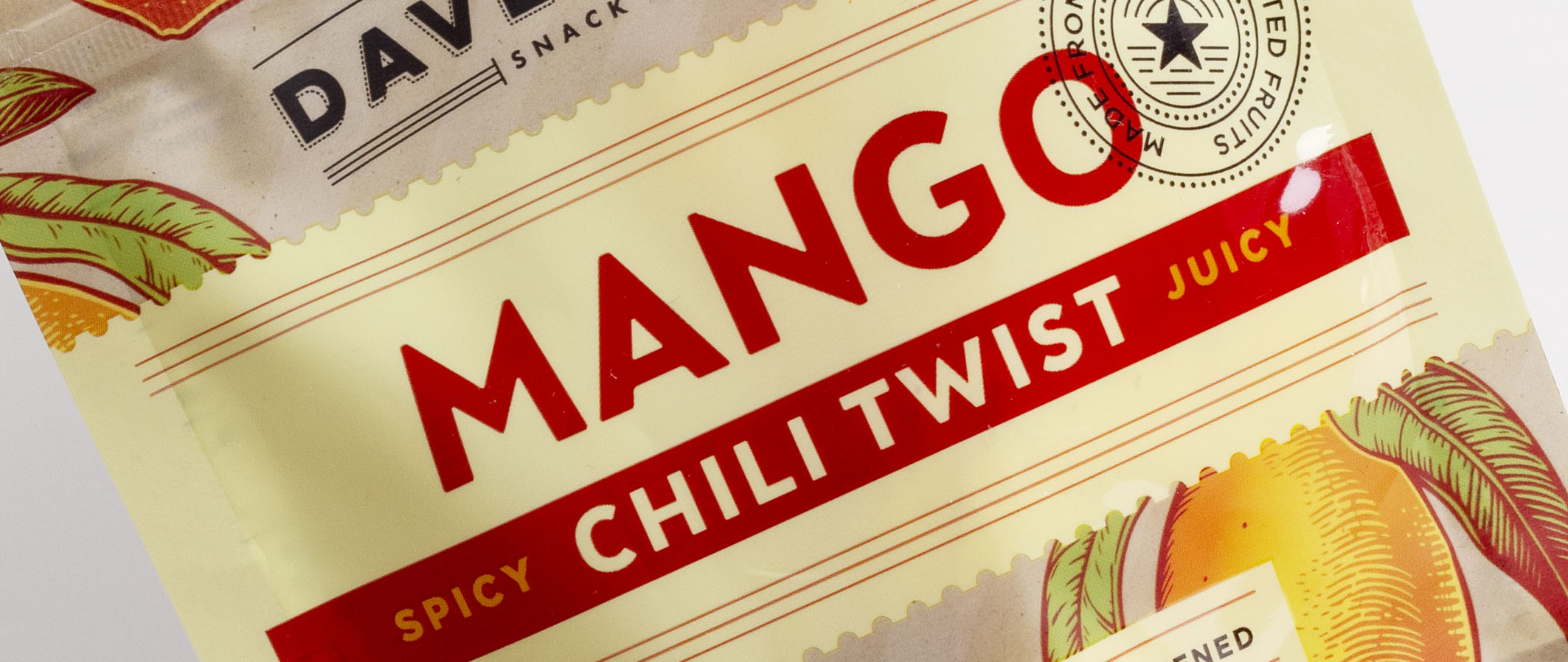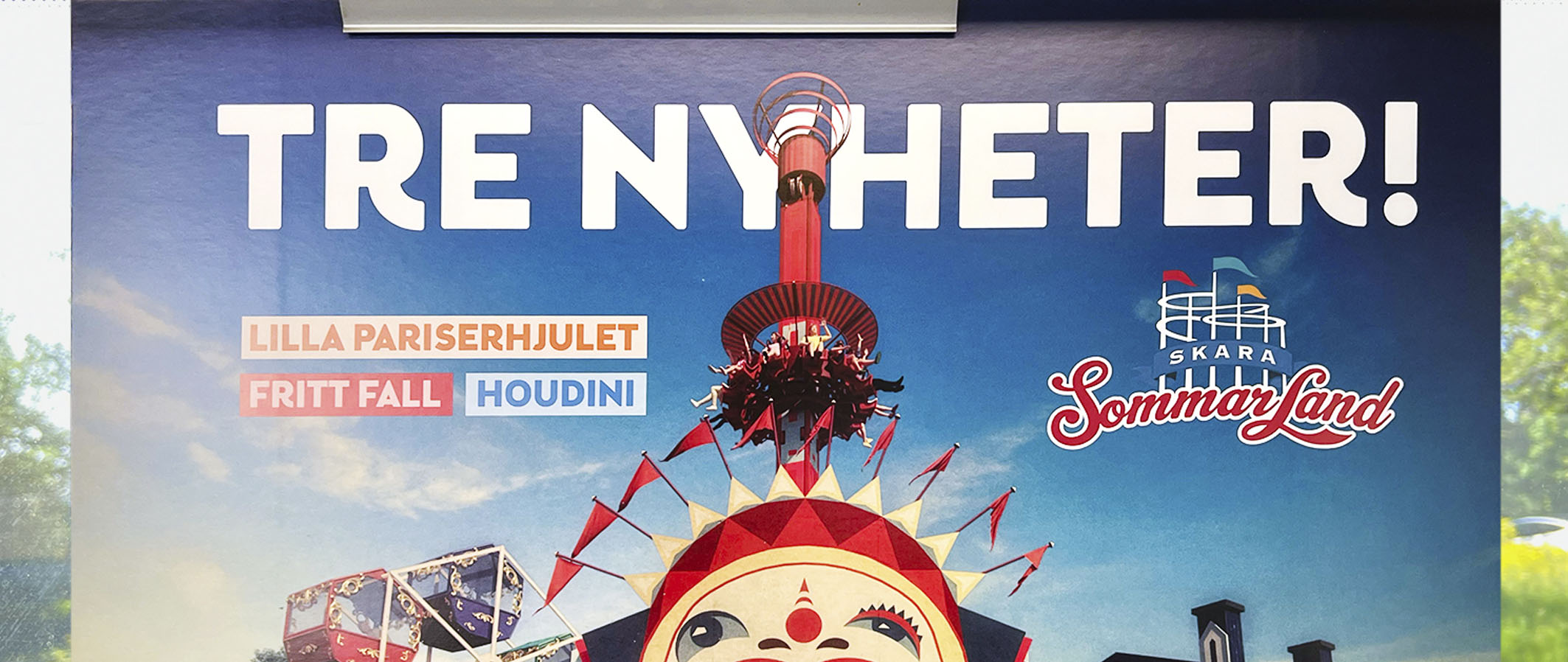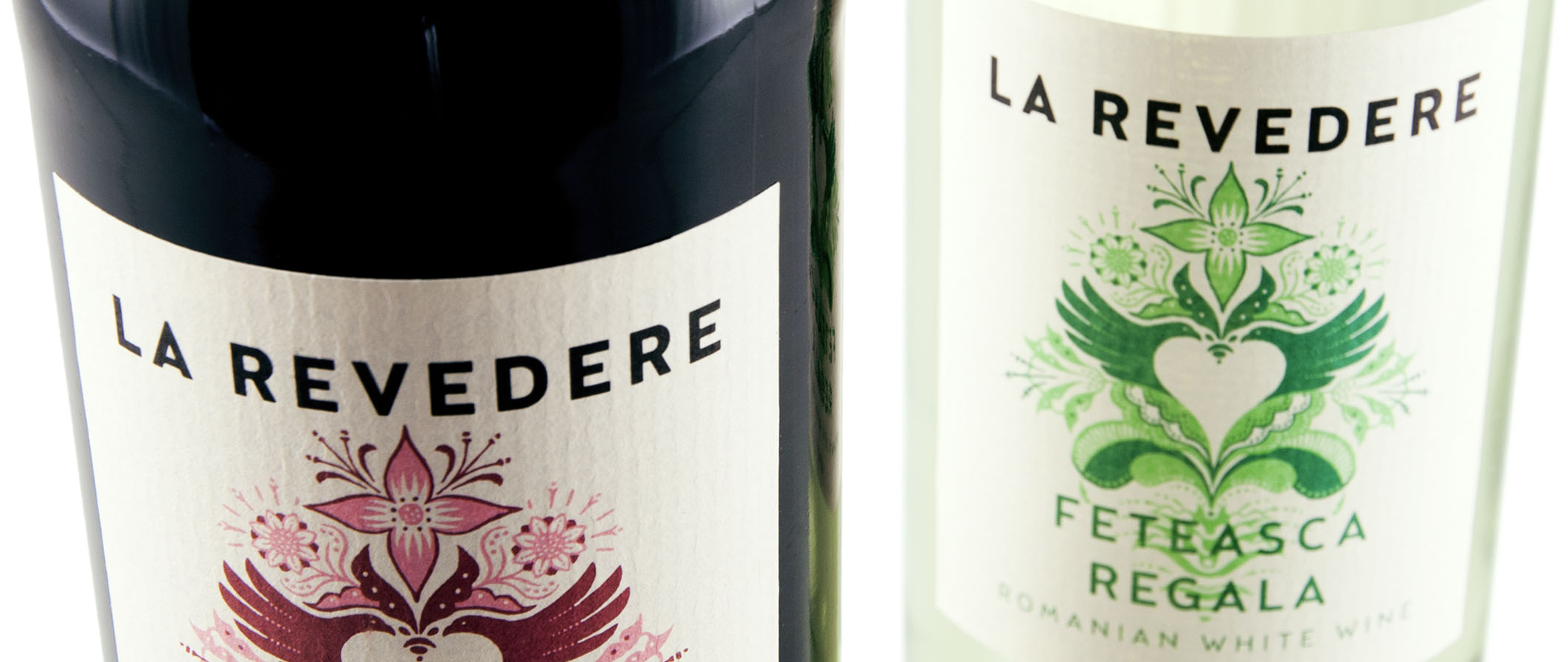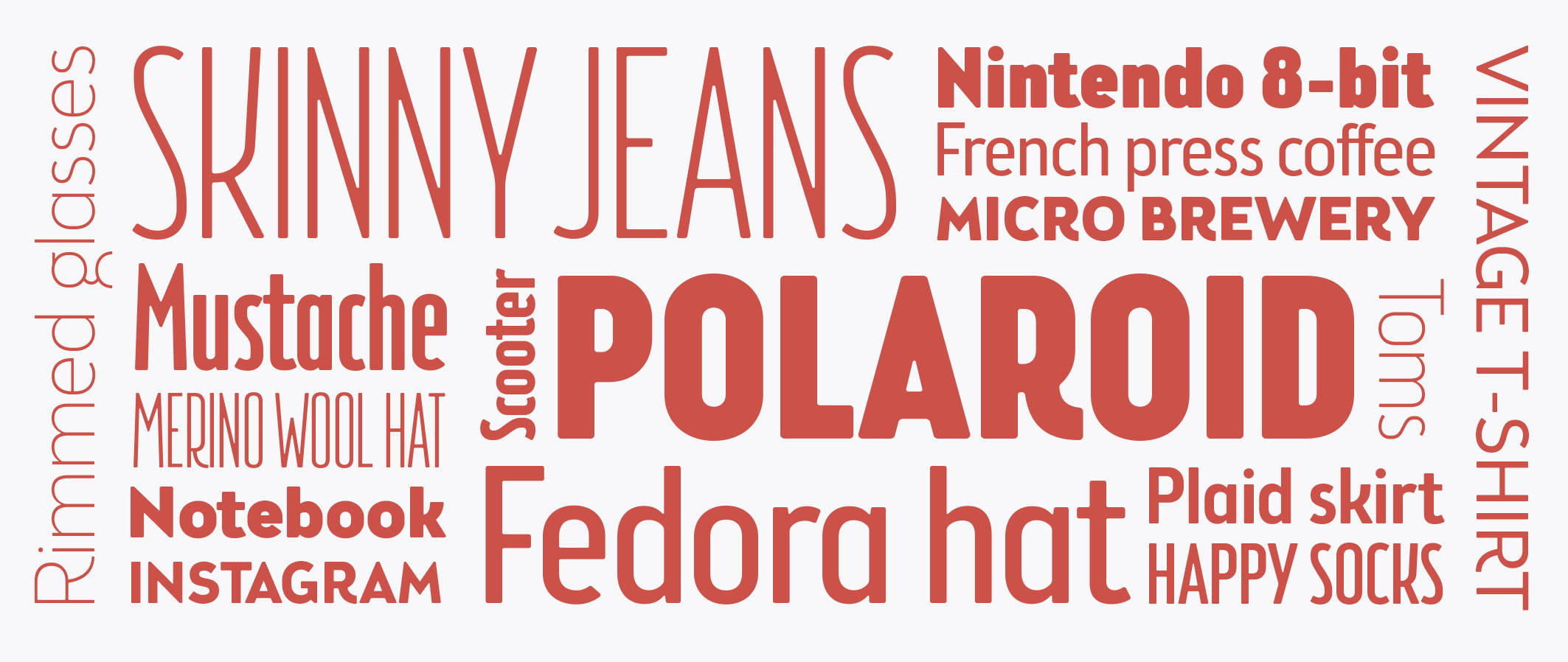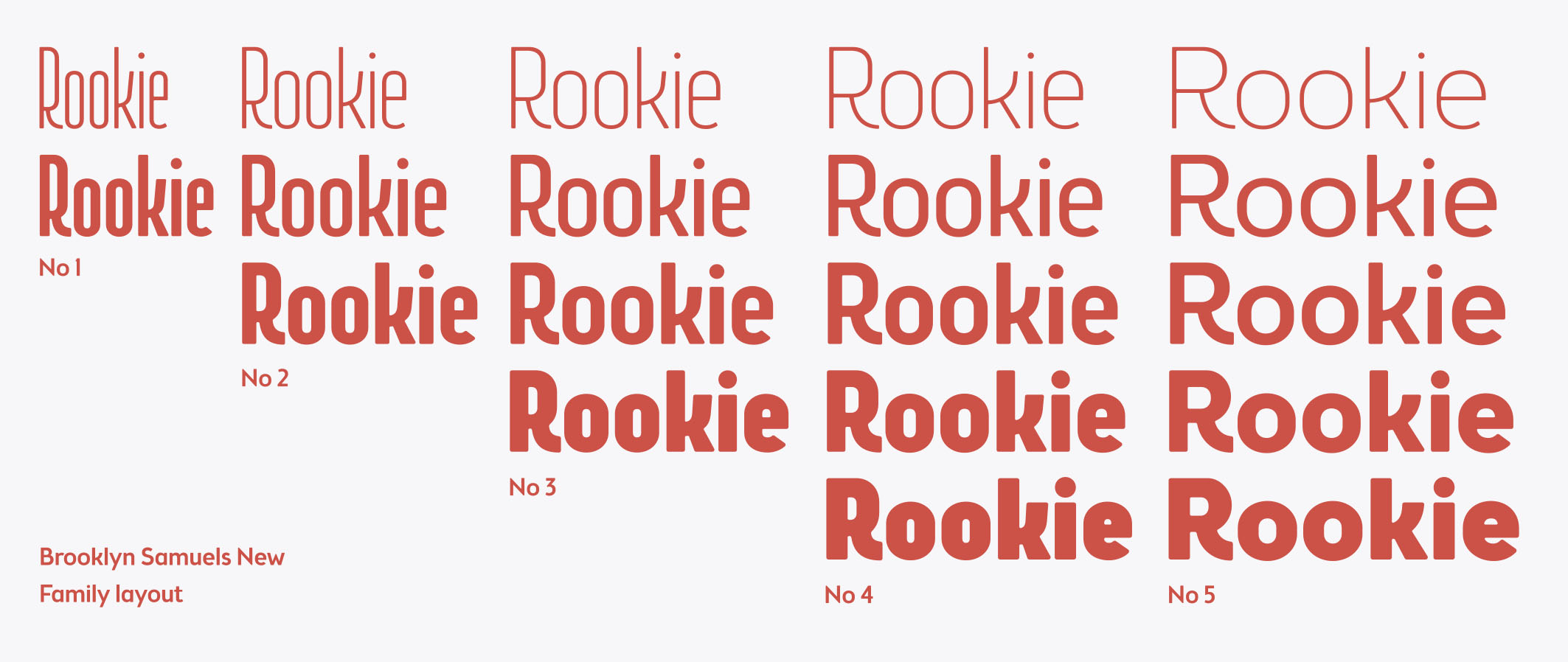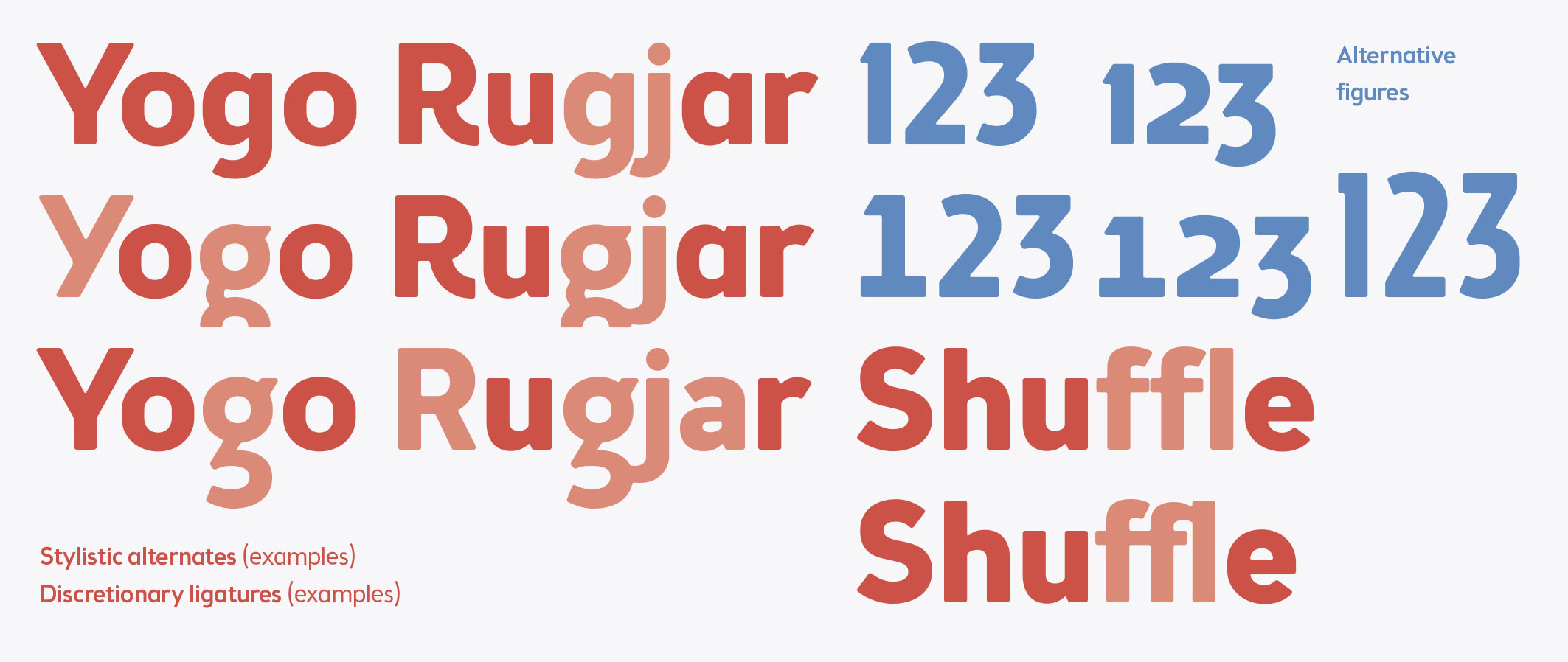
Brooklyn Samuels New
Brooklyn Samuels NEW is a modern and versatile sans-serif by Hans Samuelson. Only available from Samuelstype.se!
The scope of the this family meets all needs of a brand, from massive headlines to minimal nutritional listings on back labels or credits in a movie poster. Stylistic sets offer a more text-friendly alternative for some glyphs and numerals come in many varieties.
IMPORTANT! Note that Brooklyn Samuels New is a development of the original Brooklyn Samuels and has been trimmed in metrics, kerning, outlines and language support. If used to replace the previous version, take care to ensure the result is according to your plan.